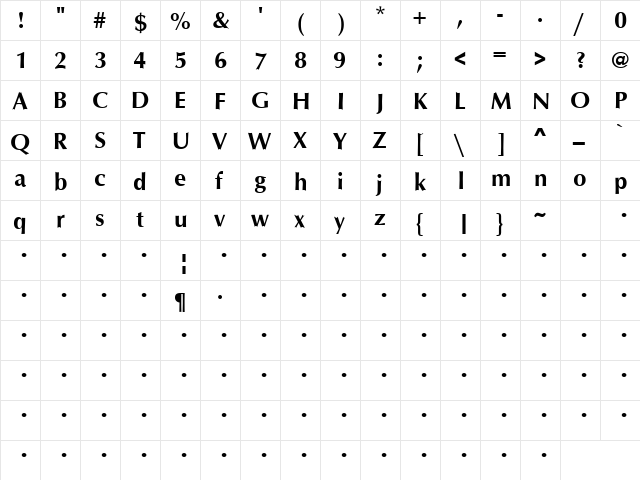
QTOptimum Bold
Design Context for QTOptimum Typeface
QTOptimum offers clean, dependable letterforms without strong stylistic allegiance, making it a practical choice for designers who need flexibility. Its bold stroke weight gives it real presence on the page.